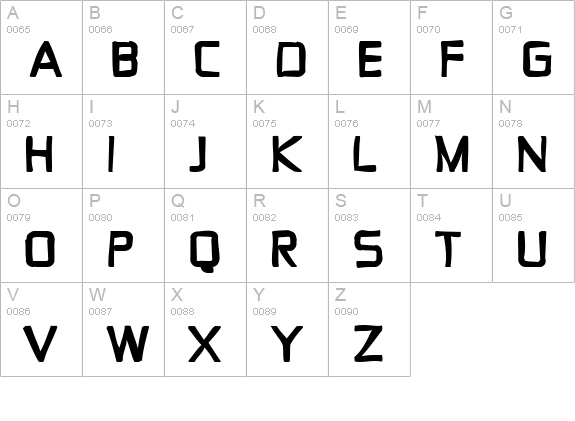
Zekton Ink Font Details
Zekton Ink font is a bold and impactful typeface that exudes strength and dynamism. With its sharp edges and distinctive style, this font is perfect for making a powerful statement in your designs. Zekton Ink is ideal for branding, headlines, posters, and any project that requires a bold and eye-catching font. The best part is that Zekton Ink font is completely free to download at FontsMarket.com. Whether you're a designer looking to add a touch of edginess to your work or someone in need of a font that commands attention, Zekton Ink is the perfect choice. Download it now and unleash the power of this striking font in your projects.